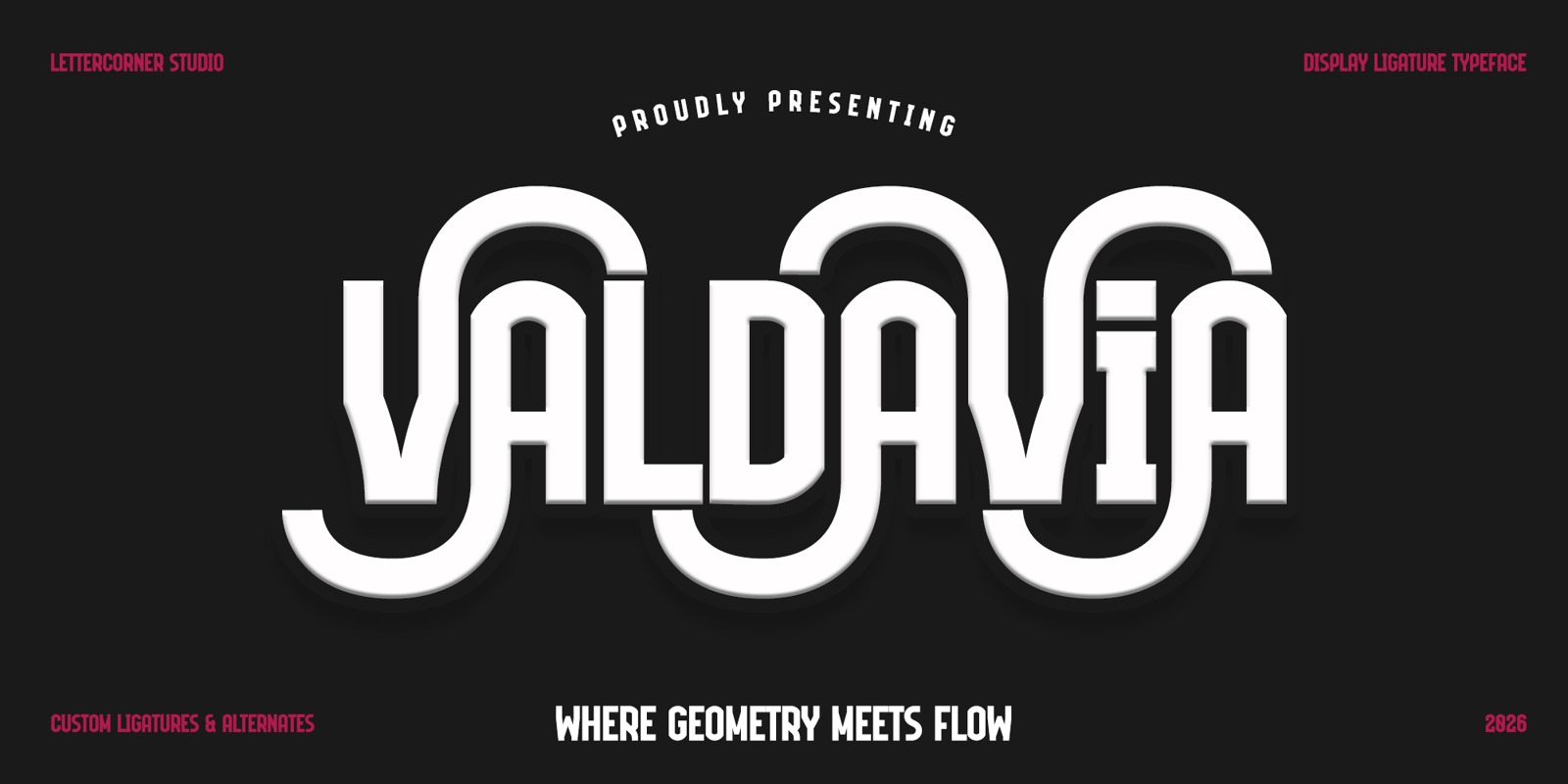
Valdavia Geometric Font
Valdavia Geometric Font is a clean and thoughtfully built typeface that works seamlessly for both professional branding and everyday creative uses. Valdavia — a display ligature typeface by Lettercorner Studio that bridges the boldness of geometric type design with the organic elegance of art deco curves.
Valdavia was born from a simple idea: that type can move. Inspired by the winding rivers of Valdivia, the golden boulevards of Buenos Aires, and the electric energy of cities that never stop Valdavia captures that movement in every glyph.